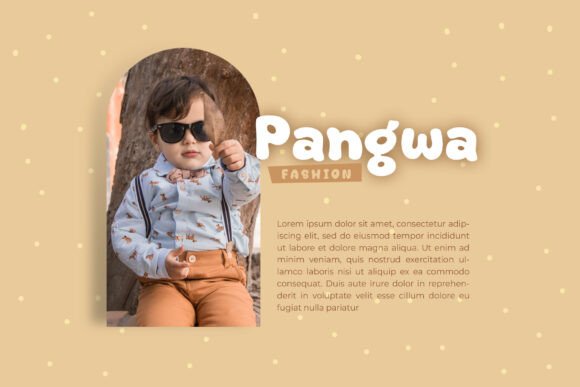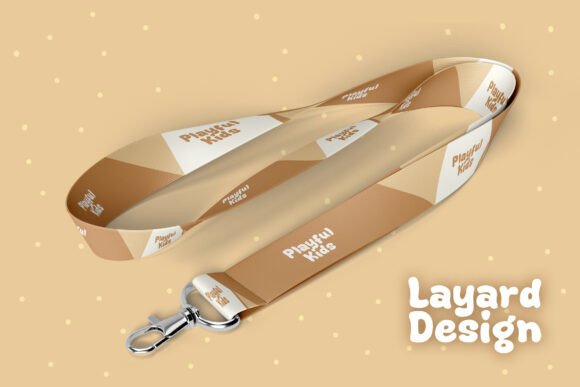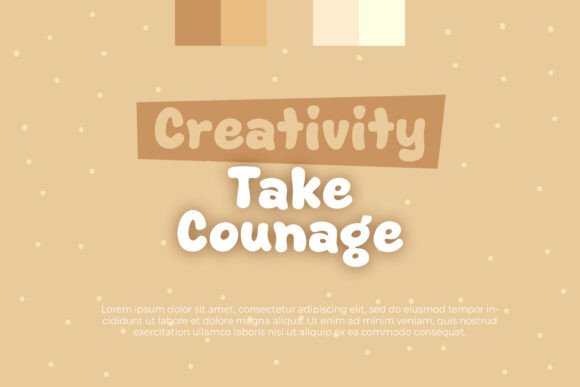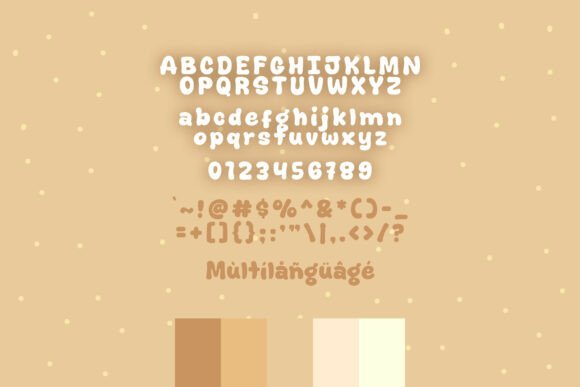
Introduction to Realbun Font
As a designer, there’s nothing quite like the thrill of stumbling upon the perfect font for a creative project. You’re browsing through a vast library of design resources, and suddenly, a particular style catches your eye. For many, that moment is what drives the creative process forward. And, for those looking for a high-quality font that can elevate their designs, the Realbun Font is an excellent choice.
This lovely display font boasts a unique twist that sets it apart from other design resources. Its versatility makes it perfect for a wide range of projects, from eye-catching posters and logos to magazine covers and book banners. With the Realbun Font, you can easily create stunning visuals that capture the attention of your audience. Plus, it’s available for a free download, making it an invaluable addition to any designer’s toolkit.
Key Features of Realbun Font
- High-quality design for creative projects with a unique and modern aesthetic.
- Comes with a transparent background, allowing for seamless integration into various design applications.
- Perfect for use in logos, branding, and typography-based designs, thanks to its clean and minimalist design.
Honest Review: Realbun Font
I recently had the chance to work with the Realbun Font, and I must say it’s a delightful addition to any design project. With its high quality and unique style, it’s perfect for creative projects where you want to stand out.
- ✨ Unique Design: The Realbun Font has a distinctive look that’s sure to grab attention. Its quirky design elements make it ideal for projects where you want to add a touch of personality.
- ✨ Transparent Background: The font’s transparent background allows for seamless integration with any design element, giving you more flexibility in your project.
While the Realbun Font is a great addition to any design arsenal, I did encounter some limitations:
- ⚠️ Limited Character Set: The font’s character set is a bit limited, which can be a drawback for projects that require a wide range of characters.
- ⚠️ Not Ideal for Body Text: Due to its unique design, the Realbun Font may not be the best choice for body text. It’s better suited for headlines or titles.
Overall, I’m impressed with the Realbun Font’s potential. With a little creativity, it can be a powerful design resource. Just be mindful of its limitations, and you’ll be well on your way to creating stunning designs with this font.
The Realbun Font is ideal for use in logos, branding materials, and other design projects where a high quality, creative font is needed. Its transparent background makes it easy to use in layered designs.